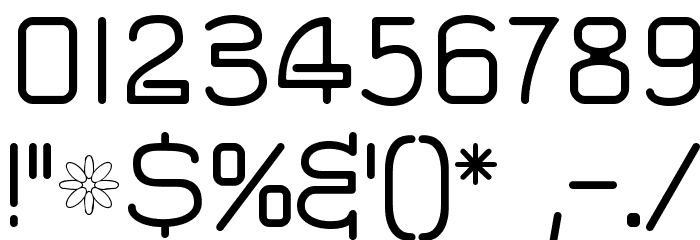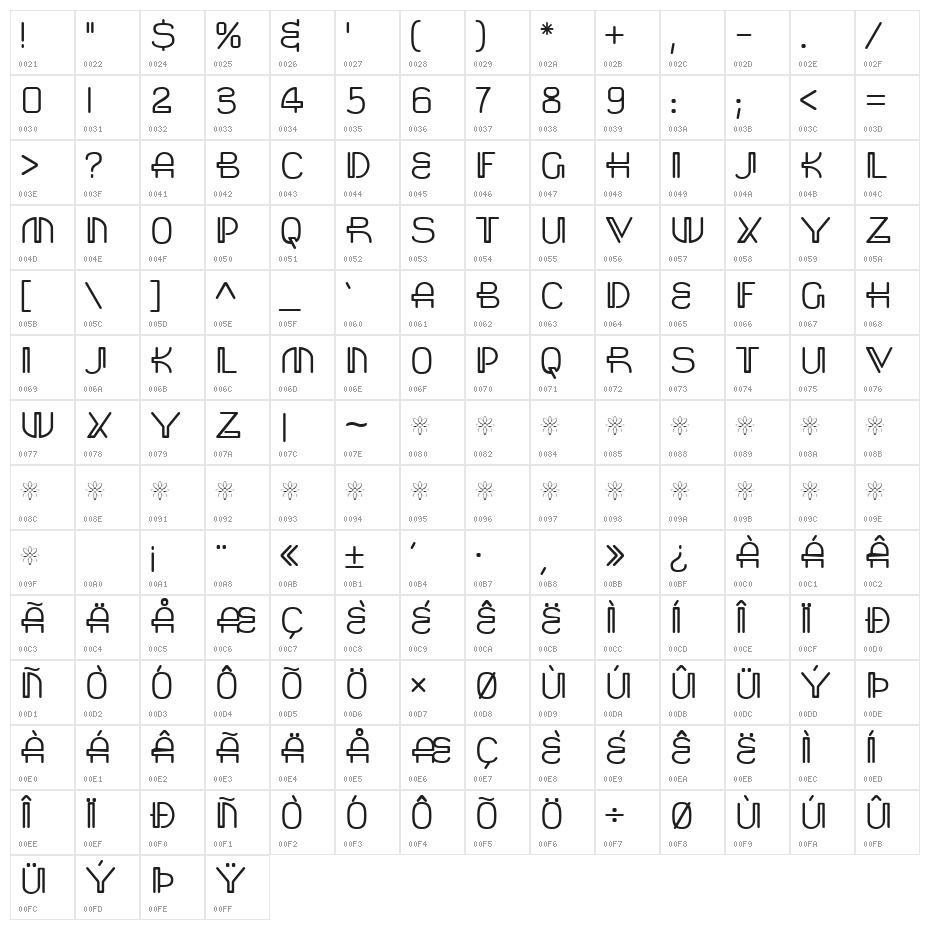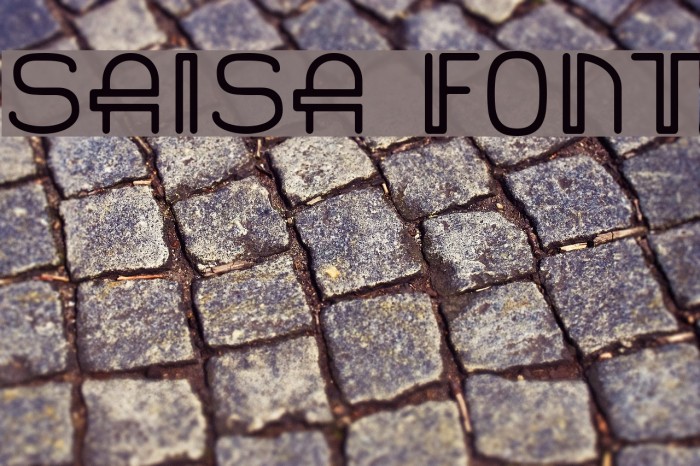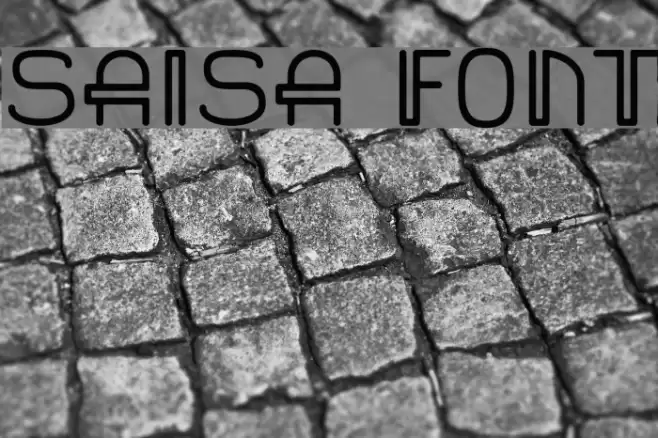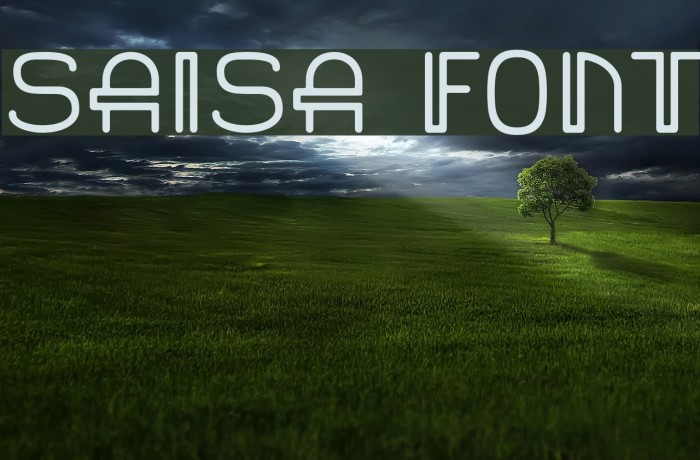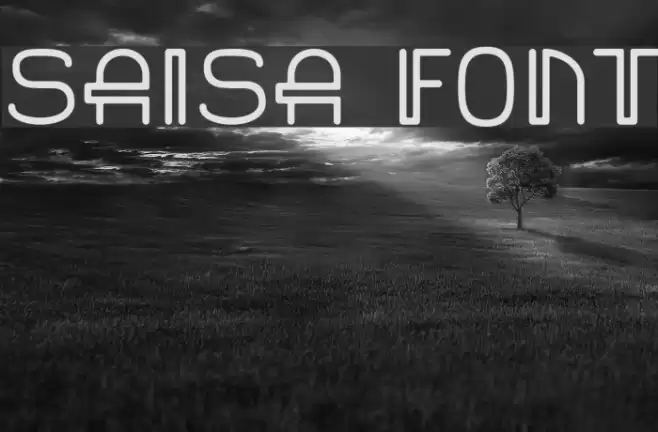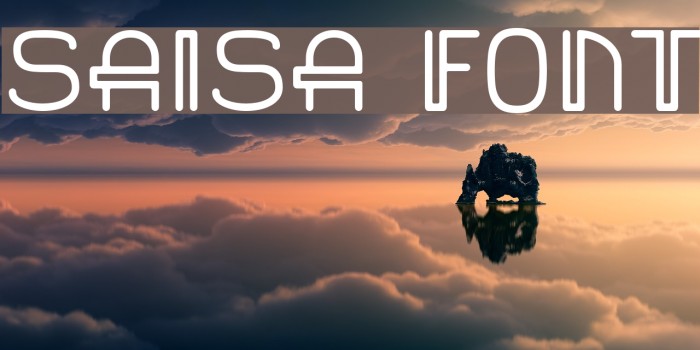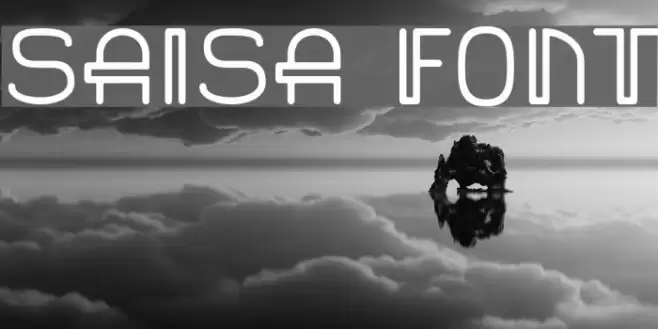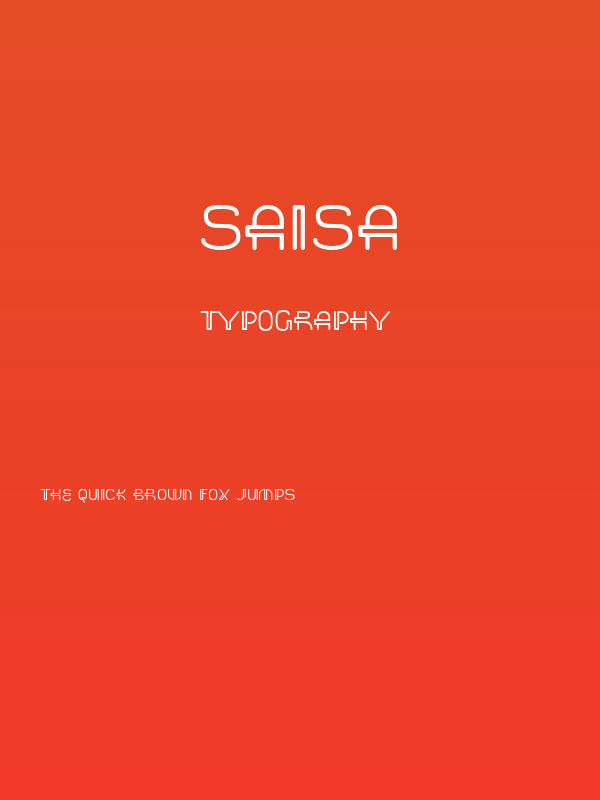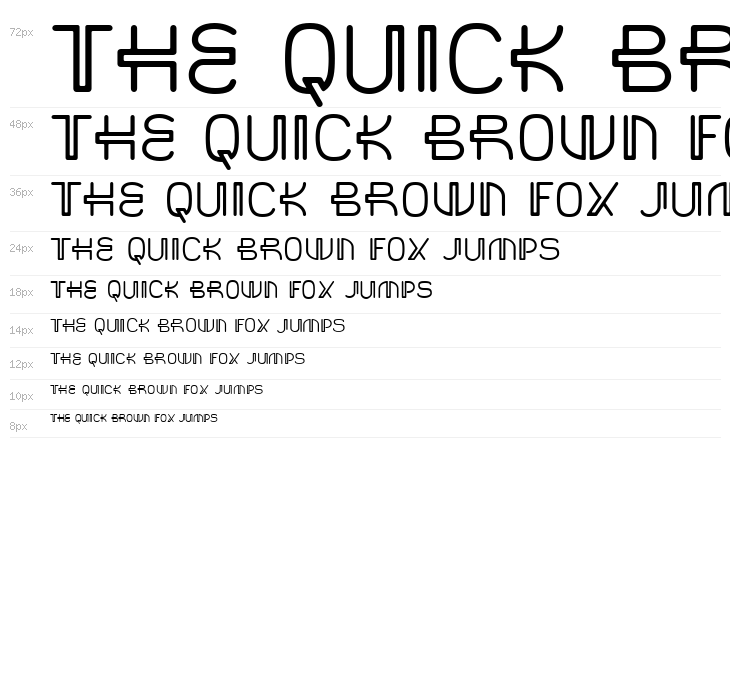
Saisa Font
Saisa Description
This font features a modern and geometric design with clean lines and rounded edges. The characters are uniform in height, creating a cohesive and balanced appearance. The uppercase and lowercase letters share a similar structure, enhancing readability while maintaining a unique style. The numerals are distinct and easy to differentiate, making them suitable for various applications. Special characters are included, adding versatility to the font. The overall aesthetic is sleek and contemporary, making it ideal for digital and print media.
| Use Case | Headlines, Logos, Digital media |
| Proposed Projects | Ideal for branding, digital media, advertising, and modern print designs. |